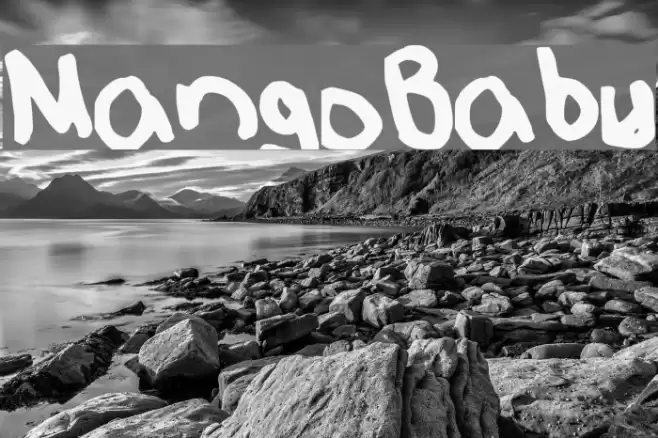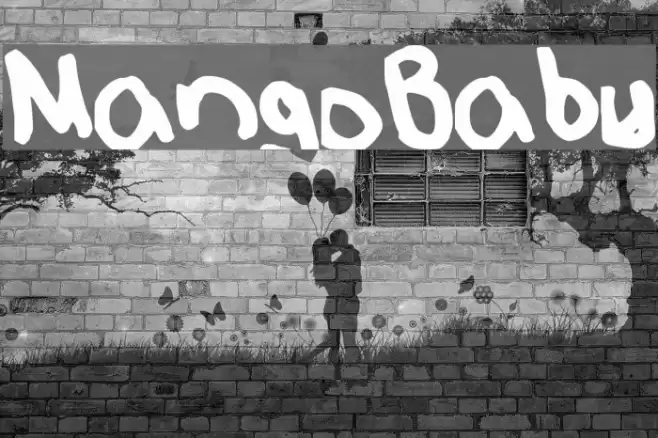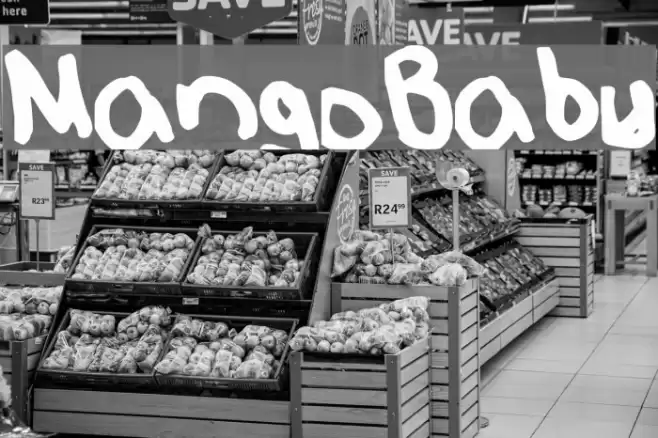
MangoBaby Font
MangoBaby Description
This playful and bold handwritten font exudes a casual and friendly vibe. The letters are characterized by their uneven strokes and slightly irregular shapes, giving it a natural, hand-drawn appearance. The uppercase and lowercase letters maintain a consistent style, with rounded edges and a slight tilt that adds to its informal charm. The numbers and special characters follow the same playful design, making it versatile for various creative projects. Its unique style is perfect for adding a personal touch to any design.
A bold, playful handwritten font with a casual and friendly vibe from Uncategorized fonts.
- Proposed Projects: Ideal for children's books, greeting cards, playful branding, and casual invitations.
- Overall Style: Casual
- Use Case: Headlines, Logos, Informal Text